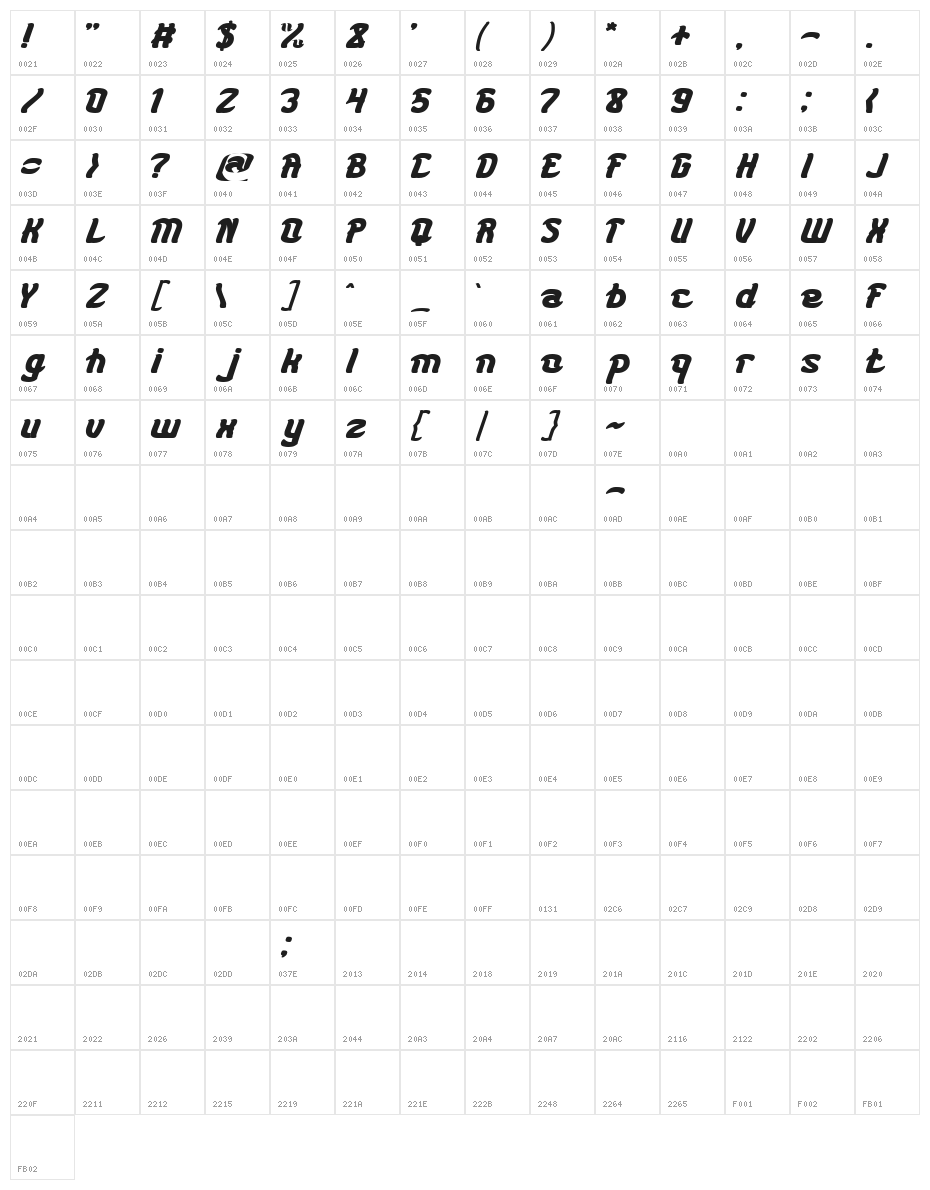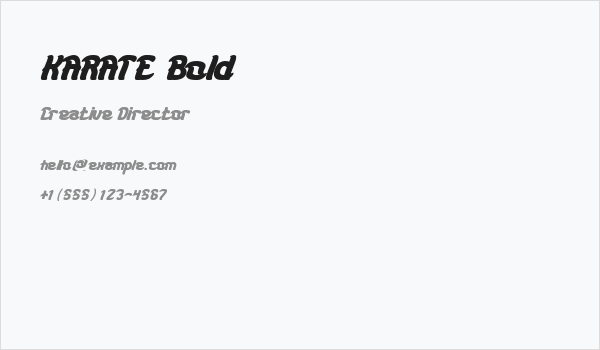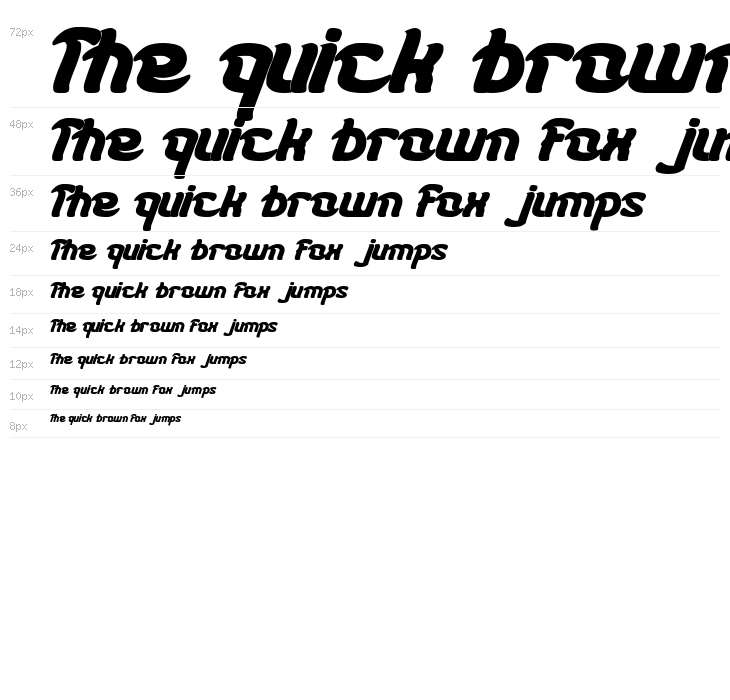
KARATE Bold Font
✎ Calligraphic
| Progetti proposti | Ideal for sports branding, action-themed posters, dynamic logos, and energetic advertising campaigns. |